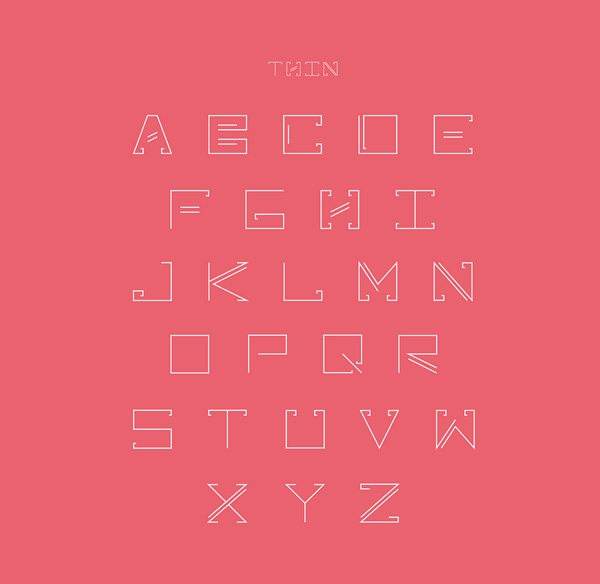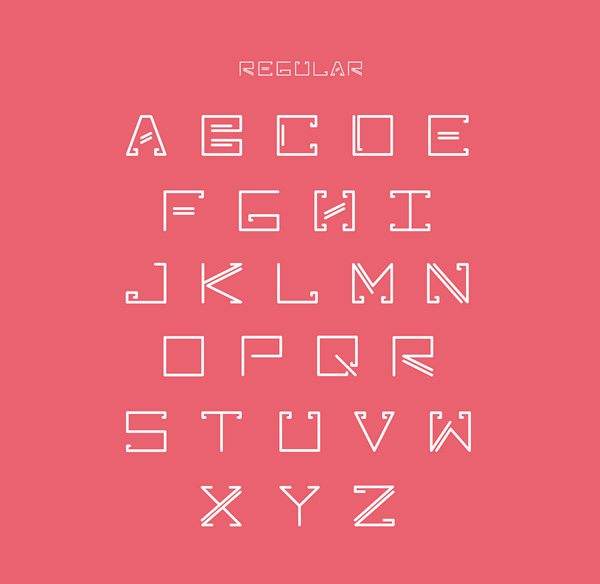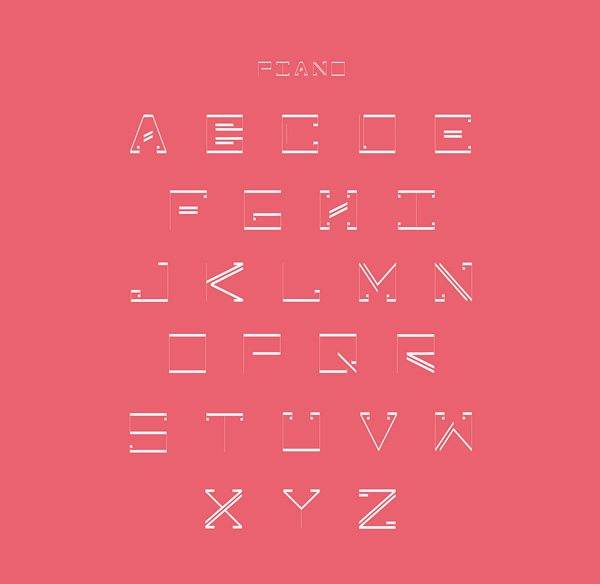
This Elegent typeface is specially designed for abstract pop-ups and animation purposes.This typeface is inspired by zebra lines.Special type-weights have been designed as ZEBRAL THIN, ZEBRAL REGULAR, ZEBRAL GEO, ZEBRAL PIANO to fullfill all round purposes.